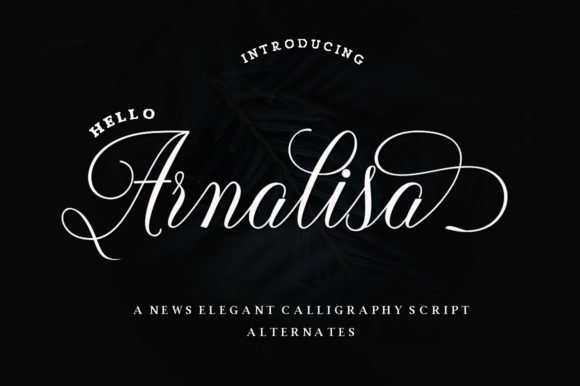
Discover the Elegance of Arnalisa Font
Have you ever found yourself lost in the world of typography, scrolling through endless fonts, searching for the perfect one to elevate your design? That’s exactly what happened to me, until I stumbled upon the Arnalisa Font. Its luxurious style and sophisticated flair instantly caught my attention, and I knew I had to share it with you.
The Arnalisa Font is a cursive calligraphy style script that exudes elegance and sophistication. Its purpose is to add a touch of luxury to upscale designs, making it perfect for high-end brands, fashion labels, and chic packaging. For designers, Arnalisa Font is a valuable asset, offering a unique way to express creativity and convey a sense of refinement.
Arnalisa Font Key Features
- Font Family: Arnalisa
- Unique Characteristics: Hand-drawn, elegant, and modern script font with a touch of whimsy, suitable for titles, headings, and invitations.
- Font Style: Script, Handwritten
Arnalisa Font Review
Overall, I found the Arnalisa font to be quite versatile and aesthetically pleasing, ✨ especially when used for headings or titles. The font’s script-like characteristics and elegant feel make it a great choice for creating a sophisticated and high-end look.
- ✨ Elegant script-like characteristics that add a touch of sophistication
- ✨ Well-suited for headings, titles, and other display text
- ✨ Supports various languages, making it a great choice for international projects
However, I did encounter some limitations when using the Arnalisa font, particularly at smaller font sizes. ⚠️ The font can become quite pixelated and difficult to read, especially on screens with lower resolutions. Additionally, the font’s complexity can make it challenging to pair with other fonts or typography elements.
- ⚠️ Can become pixelated at smaller font sizes
- ⚠️ Can be challenging to pair with other fonts or typography elements
- ⚠️ May not be suitable for body text or large blocks of text
Overall, the Arnalisa font is a great choice for projects where you want to create a high-end, sophisticated look. However, it’s essential to be mindful of its limitations and use it judiciously to ensure the best results.
Getting the Most Out of Arnalisa Font
To get the most out of Arnalisa Font, use it for:
– Titles and headings for a touch of elegance and sophistication.
– Body text for a clean and modern look.
– Logos and branding materials for a consistent and recognizable visual identity.
Common use cases for Arnalisa Font include:
– Fashion and beauty brands for their sleek and modern aesthetic.
– Technology and software companies for their clean and professional look.
– Creative agencies and designers for their versatility and elegance.
Alternatives to Arnalisa Font for Designers
Montserrat Font is a sans-serif typeface designed by Julieta Ulanovsky. It’s a great alternative to Arnalisa Font when you need a clean and modern look for your designs. Montserrat Font is highly legible and versatile, making it suitable for various design projects, including logos, headlines, and body text.
Comparison to Arnalisa Font: While Arnalisa Font has a more elegant and refined feel, Montserrat Font is more modern and edgy. Montserrat Font is ideal for projects that require a bold and contemporary look.
Lato Font is a sans-serif typeface designed by Łukasz Dziedzic. It’s a great alternative to Arnalisa Font when you need a font that’s highly legible and versatile. Lato Font is suitable for various design projects, including logos, headlines, and body text.
Comparison to Arnalisa Font: While Arnalisa Font has a more elegant and refined feel, Lato Font is more modern and clean. Lato Font is ideal for projects that require a clear and easy-to-read font.
Open Sans Font is a sans-serif typeface designed by Steve Matteson. It’s a great alternative to Arnalisa Font when you need a font that’s highly legible and versatile. Open Sans Font is suitable for various design projects, including logos, headlines, and body text.
Comparison to Arnalisa Font: While Arnalisa Font has a more elegant and refined feel, Open Sans Font is more modern and clean. Open Sans Font is ideal for projects that require a clear and easy-to-read font.